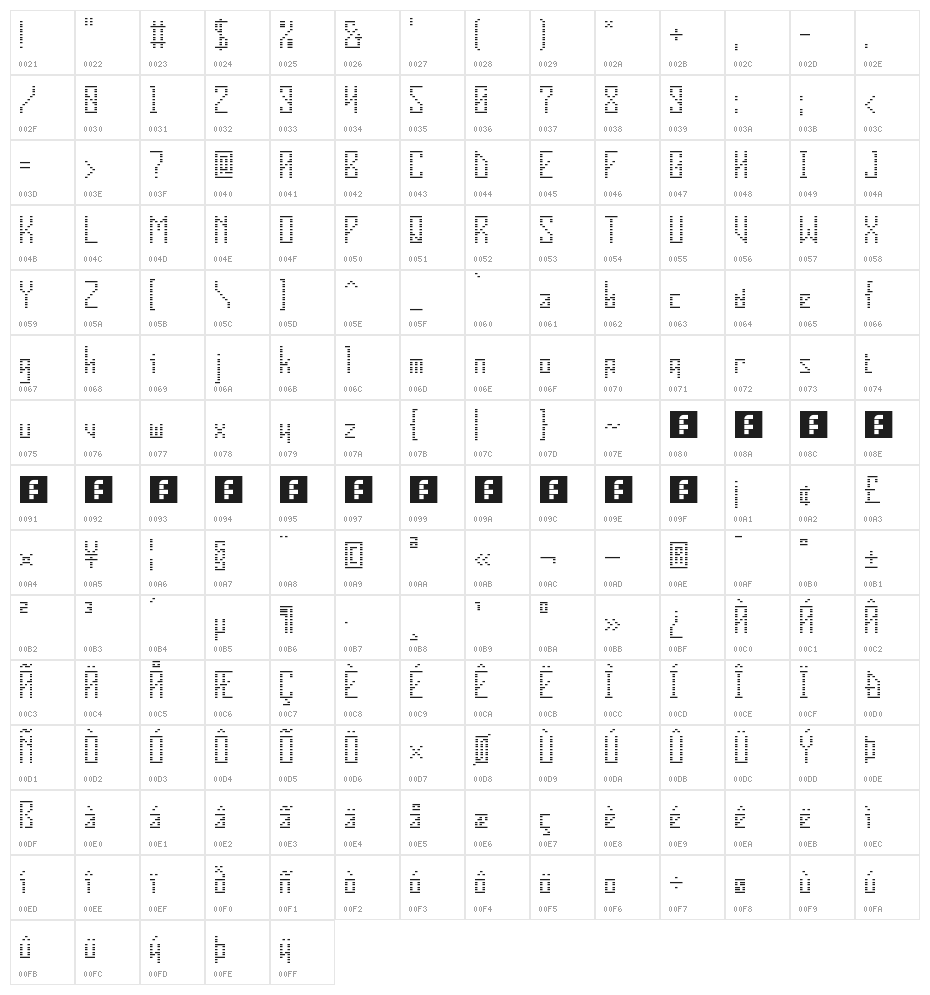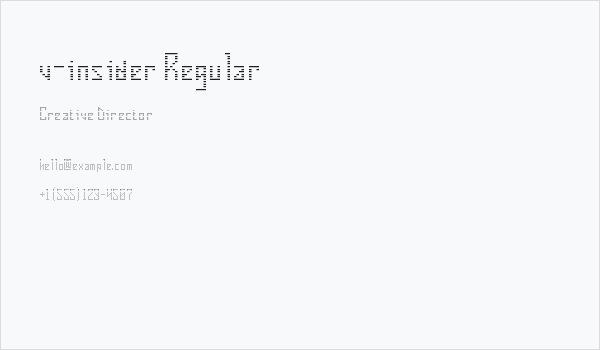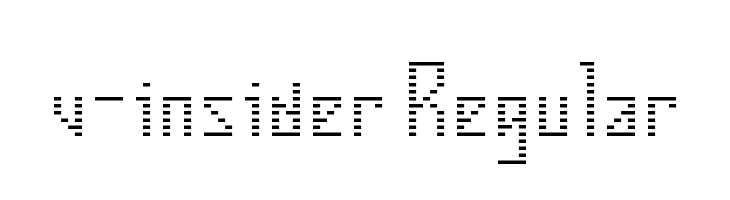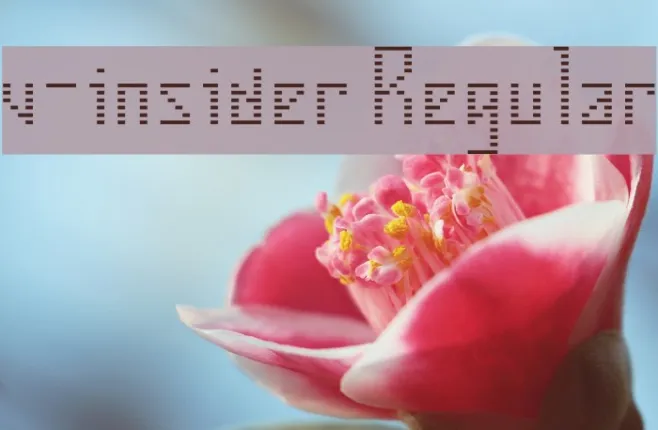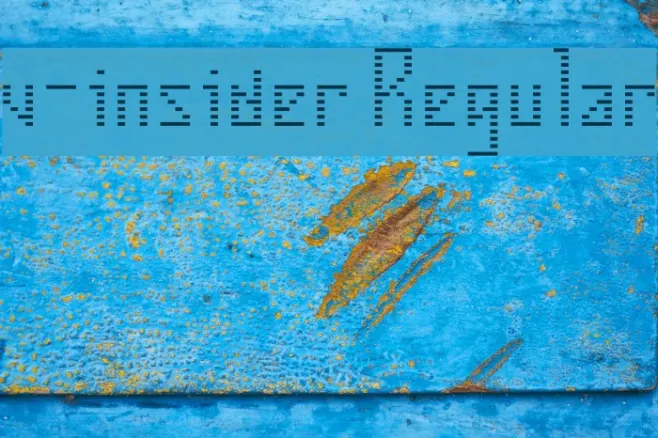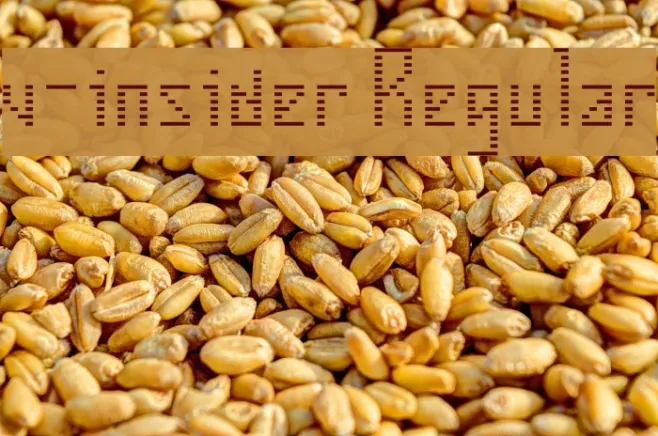
v-insider Regular Font
v-insider Regular Description
This font features a unique dot matrix style, reminiscent of early digital displays and printers. Each character is constructed from a grid of dots, giving it a pixelated appearance. The uppercase and lowercase letters maintain a consistent height, with clear differentiation between each character. Numbers and special characters follow the same dot pattern, ensuring uniformity across all glyphs. This design evokes a retro, digital aesthetic, making it ideal for projects that require a vintage tech feel. The spacing between characters is regular, allowing for easy readability despite the unconventional style.
| Use Case | Headlines, Logos, Digital Art |
| Proposed Projects | Ideal for digital art, retro-themed designs, tech-related branding, and creative posters. |